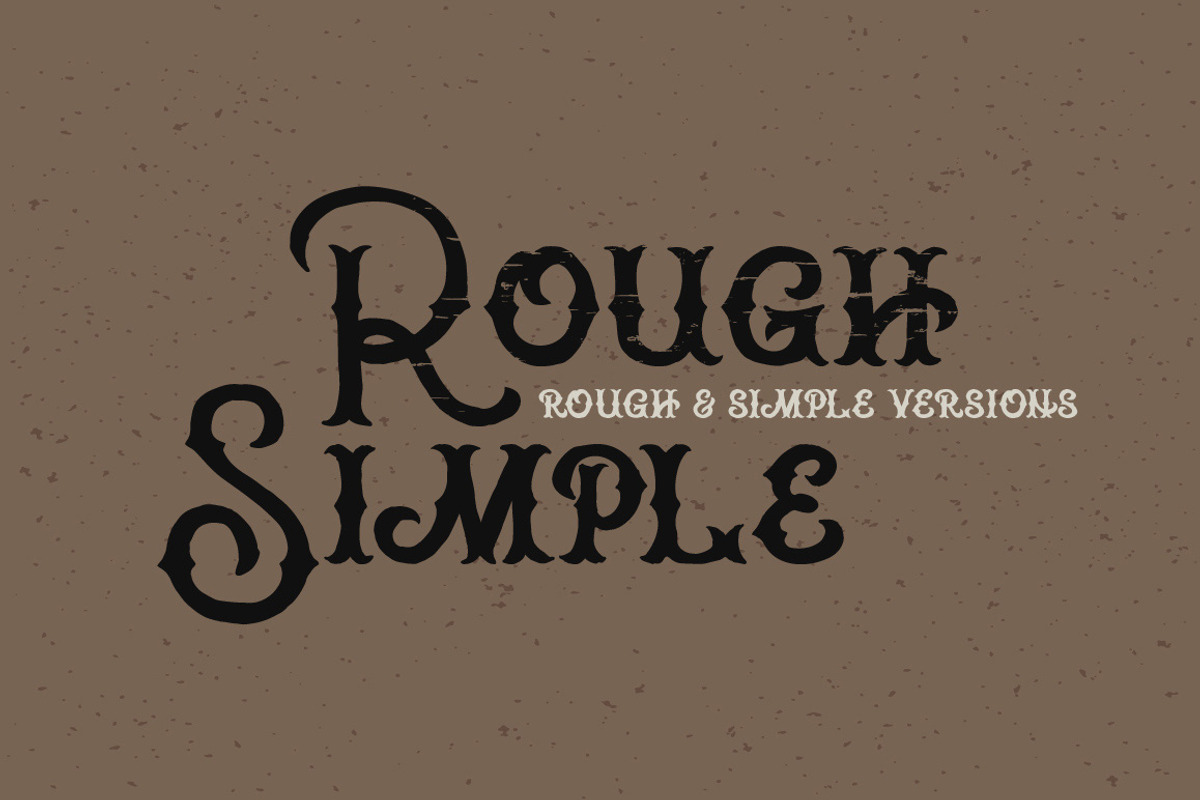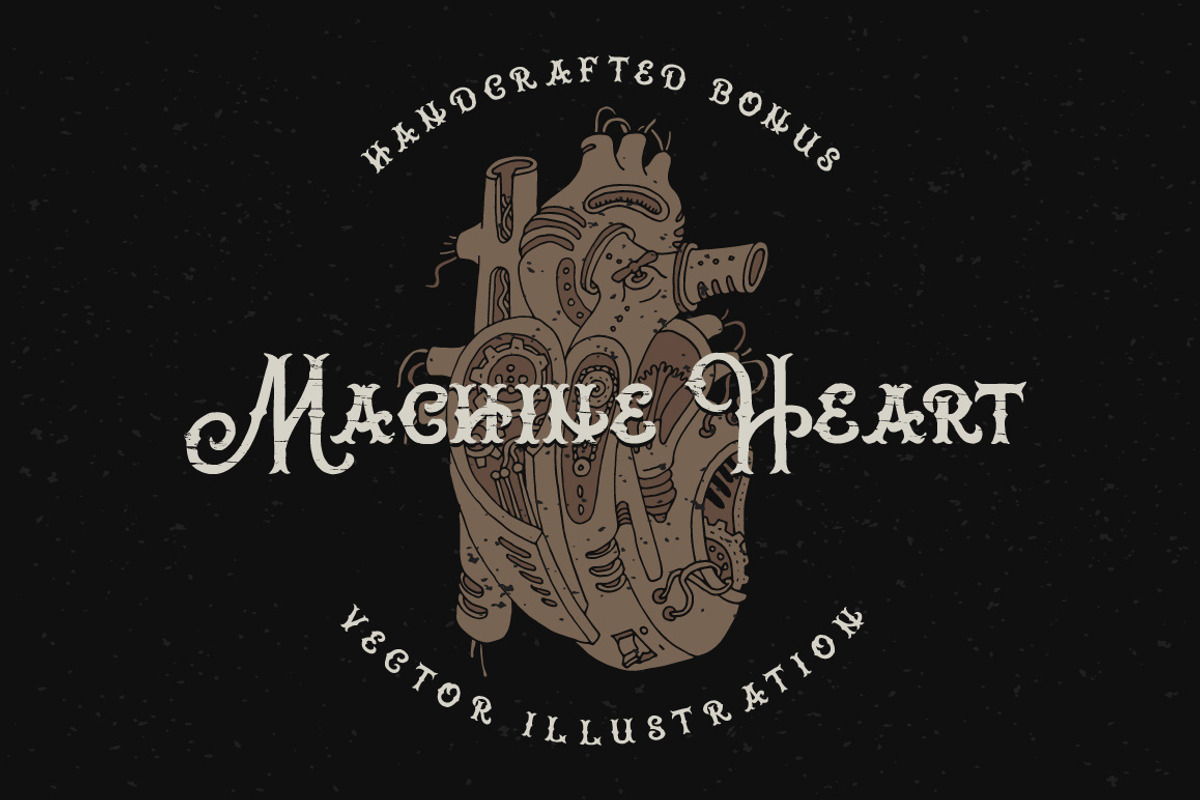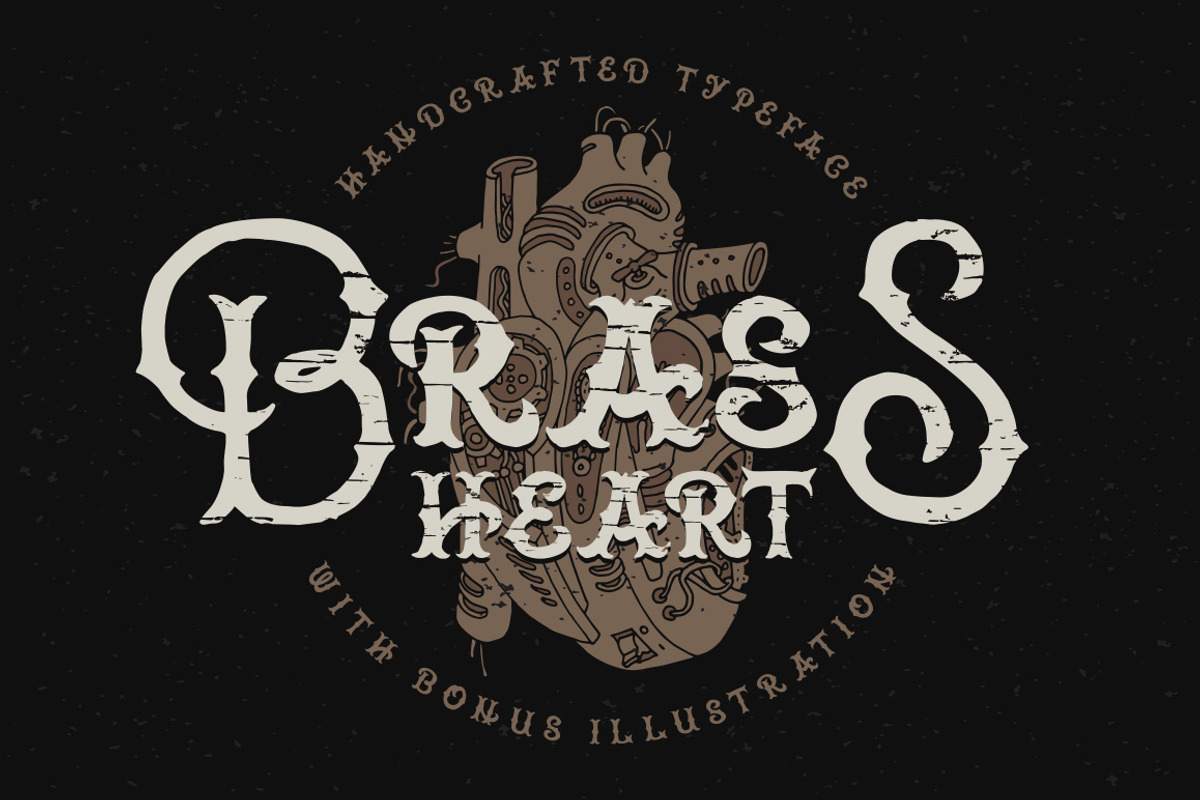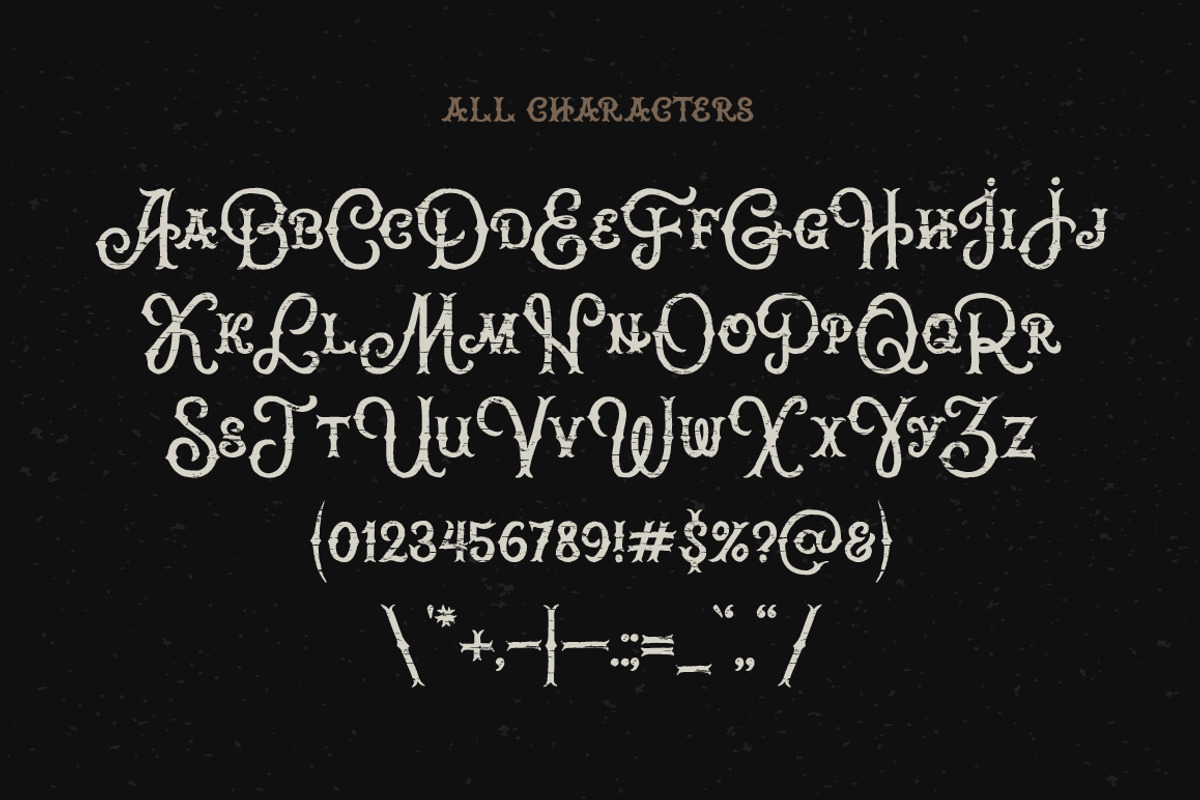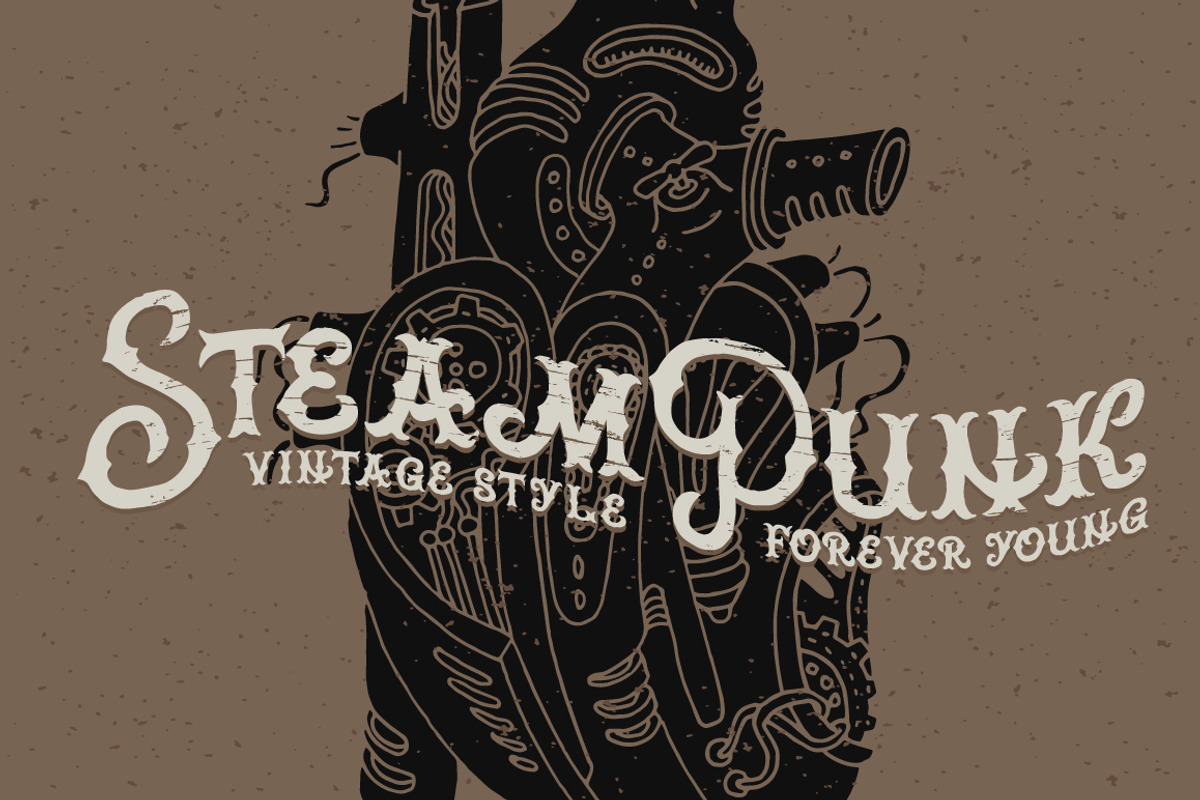
Brass heart font
Brass heart font by Gleb Guralnyk is a font selected for branding, posters, packaging, typography.
Why Brass heart font is worth a look
Brass heart font by Gleb Guralnyk fits naturally into Branding, posters, packaging, typography.